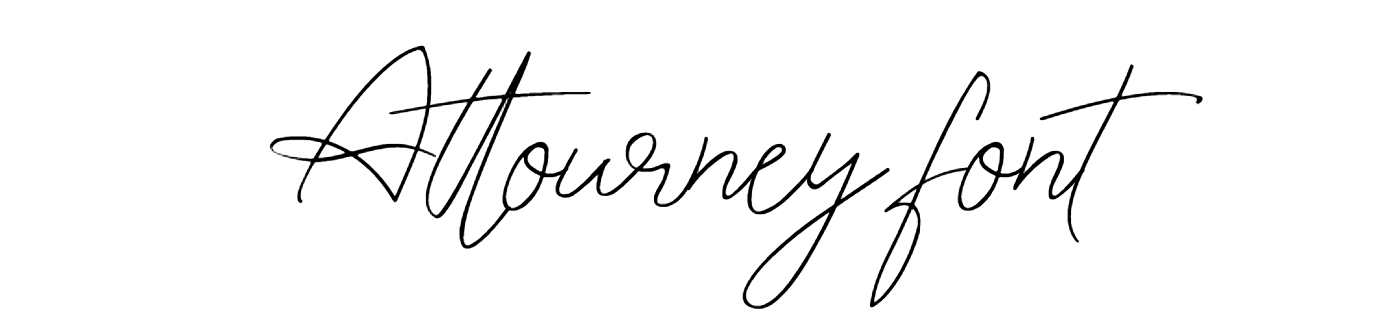
Attourney
Attourney is a handwritten font (2021). It looks like someone actually wrote it by hand: relaxed, friendly and a little imperfect in a good way. You can download it for free and test it with your own words in the preview above.
What You Can Type With Attourney
Attourney covers the full alphabet in upper and lowercase, plus all ten numbers, so you can set names, dates and prices without switching fonts. Everyday marks like &, !, ? and @ are there too. There are no accented letters like é or ñ, so it's best kept to English text.
Ligatures and Smart Letters in Attourney
Where Attourney Works Best
Think of Attourney for greeting cards, journal pages and friendly social posts. Set it a bit larger than you would a normal text font. Handwriting styles lose their charm once they get too small to read comfortably.
Does Attourney have ligatures?
Yes. Attourney has ligatures that turn on by themselves in most design apps and browsers, so you don't need to do anything special.
Does Attourney support accented letters?
No. Attourney has no accented letters such as é, ñ or ü, so it's best for English text.